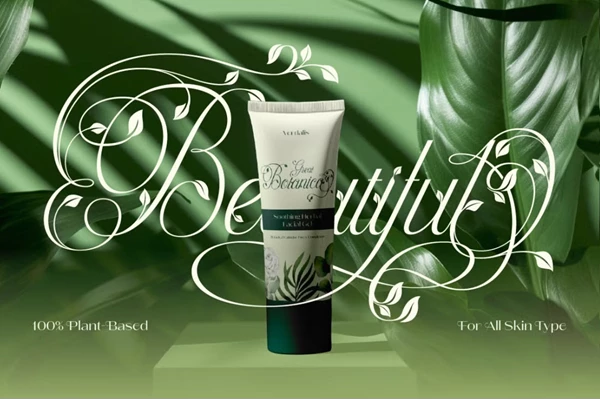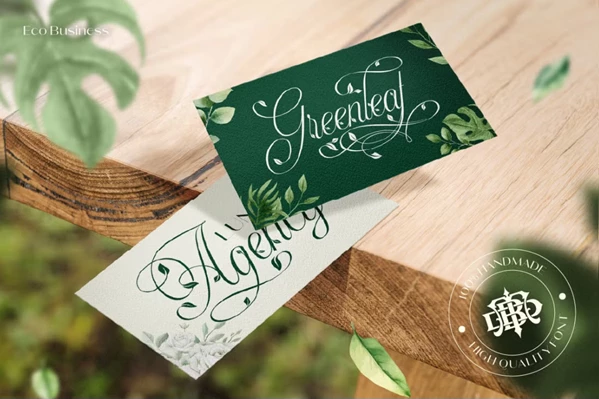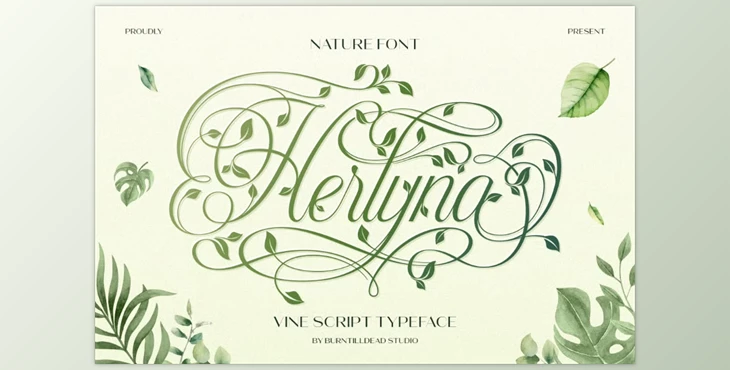
Herlyna Script Font:
Herlyna Script Font is an exquisite typeface that cleverly combines classic beauty with the soft and delicate curves of leaf ornaments. Herlyna is inspired by the gentle motifs of climbing vines, available in two styles: Regular and Vine. This font beautifully conveys a sense of luxury and freshness, making it suitable for eco-conscious brand identities, invitation cards, packaging for herbal products, and elegant branding logos. Herlyna has intricate calligraphic flourishes and a refreshingly modern organic vibe to it, offering a range of stylistic alternates for easy typographic personalization.
Some great features of Herlyna Script Font
- Uppercase & Lowercase letters
- Numbers
- Punctuation marks
- Stylistic alternates
- Ligatures
- Support for multiple languages
"Herlyna Script Font" Samples: